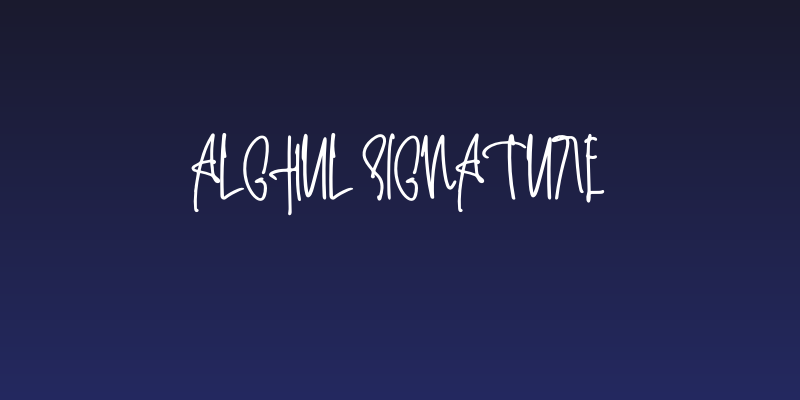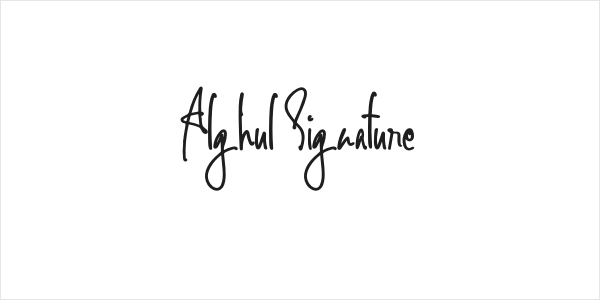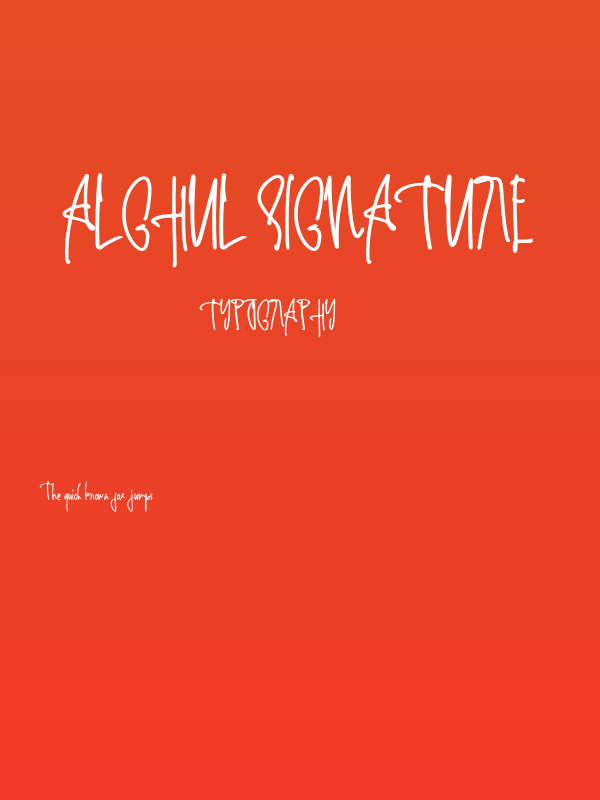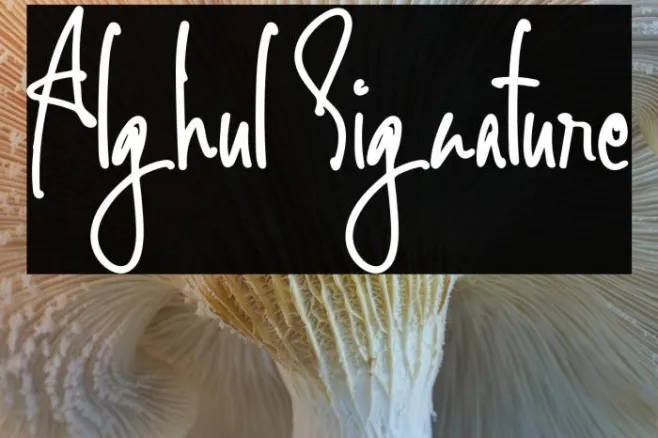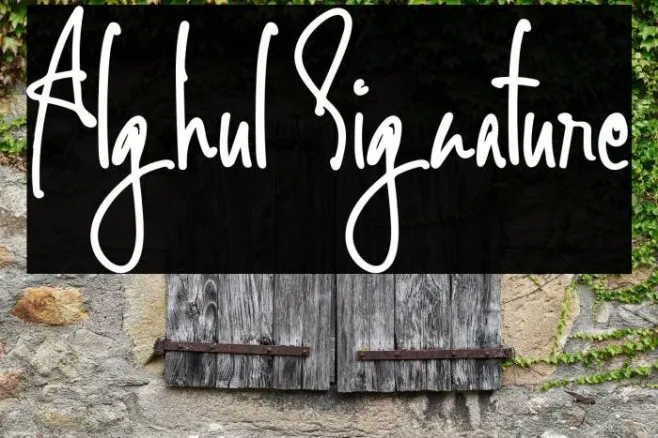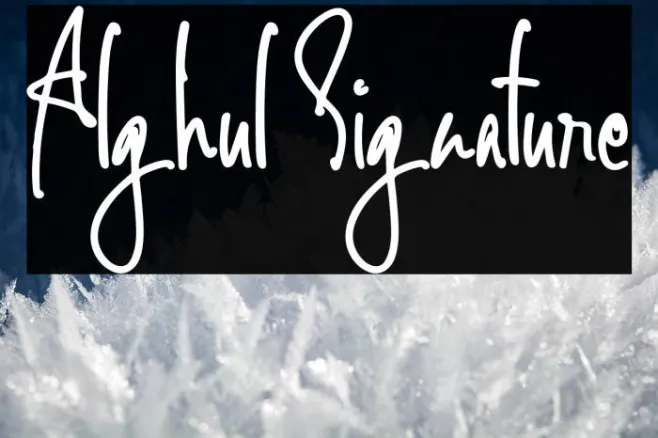
Alghul Signature Font
Alghul Signature Description
This font exudes a dynamic and expressive style, characterized by its fluid, handwritten appearance. The letters are elongated and slightly irregular, giving it a personal and artistic touch. The uppercase and lowercase characters maintain a consistent flow, with the uppercase letters being more prominent and bold. Numbers and special characters follow the same fluid style, ensuring a cohesive look across all text. The overall design is reminiscent of a signature, making it ideal for projects that require a personal or creative flair.
| Proposed Projects | Ideal for personal branding, artistic projects, invitations, and creative logos. |